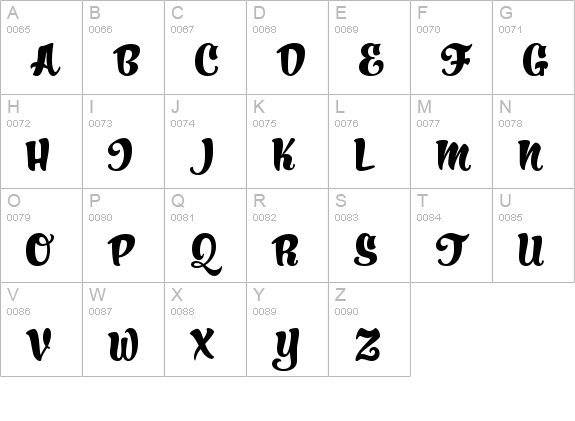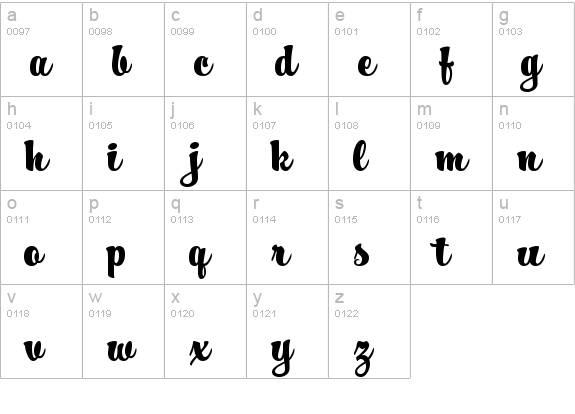
HucklebuckJF font is a whimsical and playful typeface that exudes charm and personality. With its quirky and unique design, this font is perfect for adding a touch of fun to any project. Whether you're creating invitations, posters, or branding materials, HucklebuckJF will instantly grab the attention of your audience. What's even better is that HucklebuckJF font is completely free to download at FontsMarket.com. Yes, you read that right – you can access this delightful font at no cost! So why wait? Add a splash of creativity to your designs with HucklebuckJF font today.